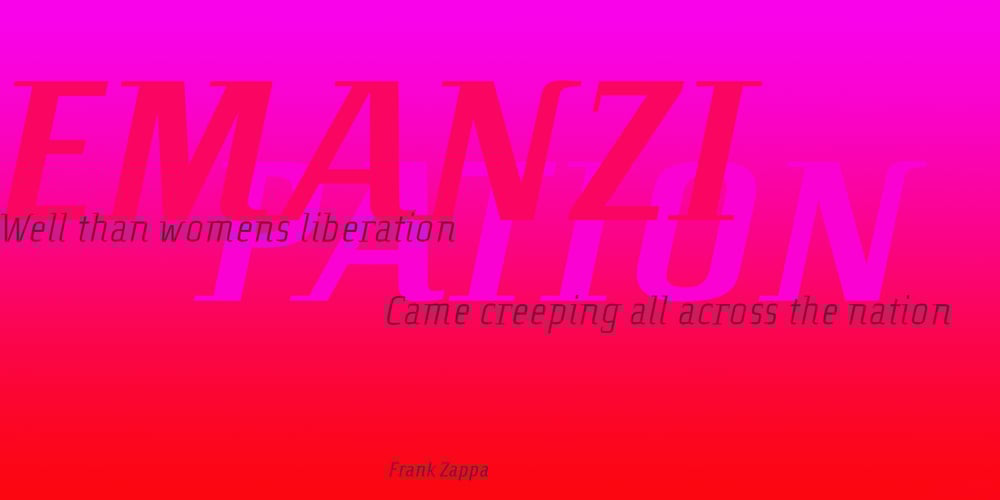
Sardo Font Family was designed by Hartmut Schaarschmidt and published by SD Fonts. Sardo contains 5 styles and family package options. Not serif, nor sans, partly soft, partly crude, but highly individual. Sardo comes with a vivid slanted look resulting from the contrast of its common classic stroke difference and straight thin serifs, adding a rigid component to its appearance. Thus Sardo shows a strong character projecting a huge amount of individuality. A new display font made to draw attention where classic serifs and sans serifs appear just dull. So please meet Sardo, a cosy wild cat showing Sharpe claws.